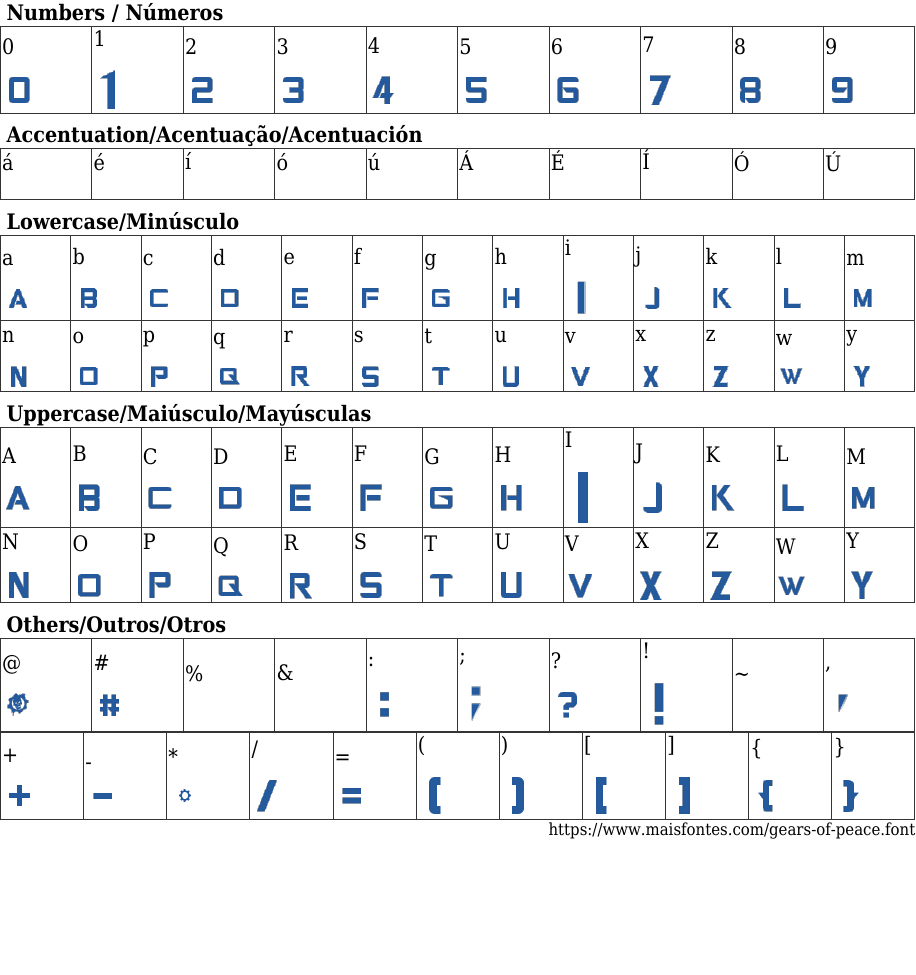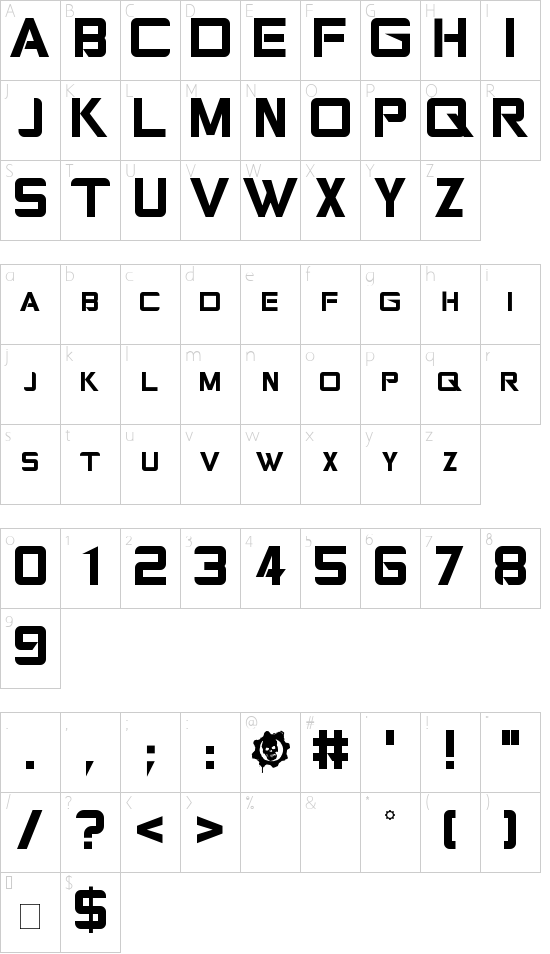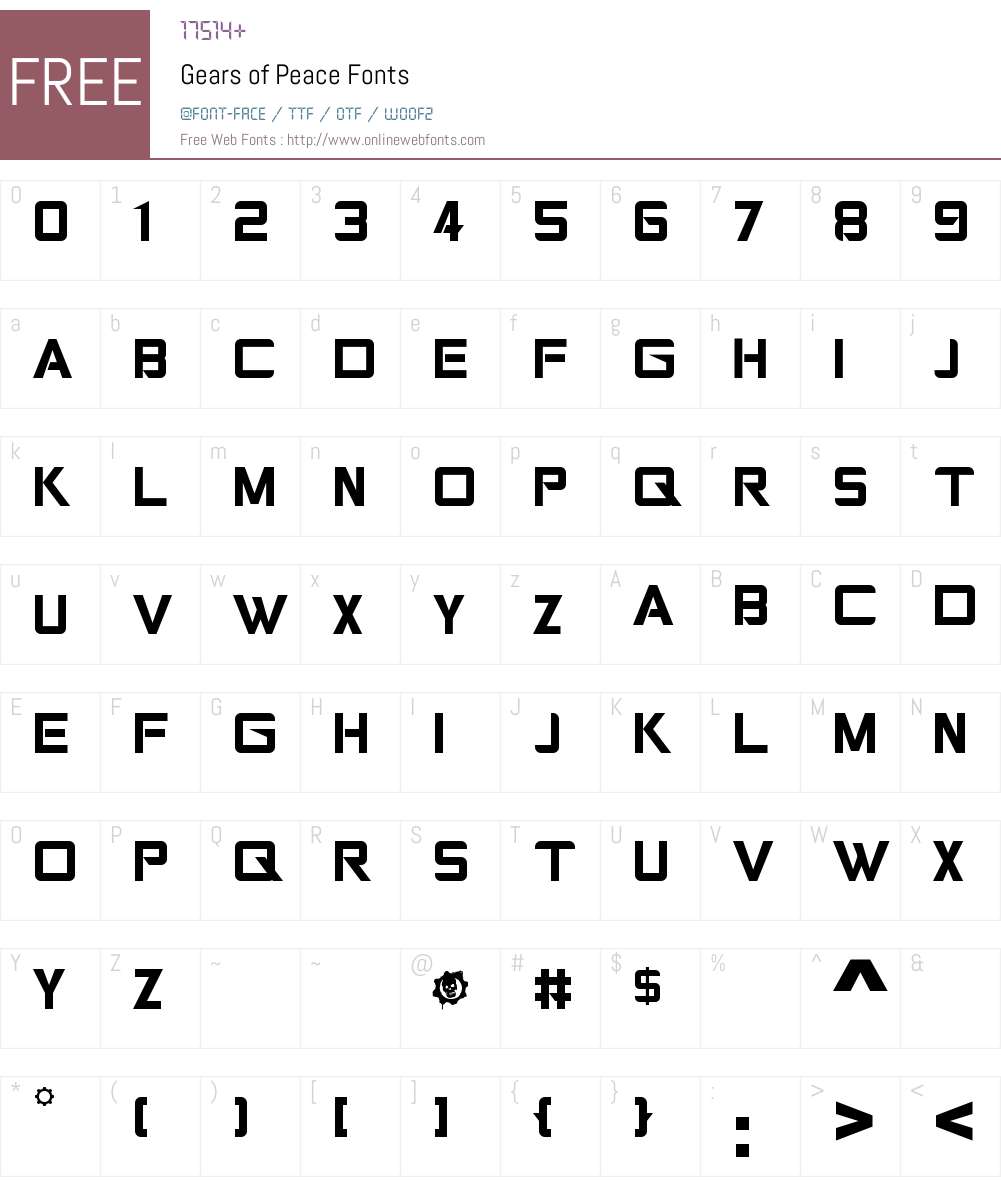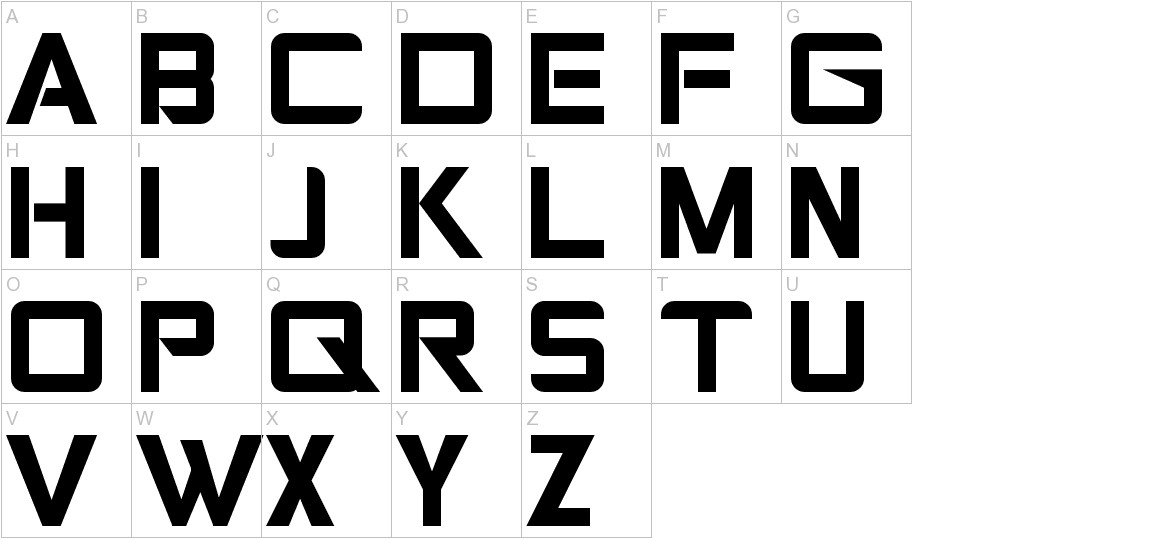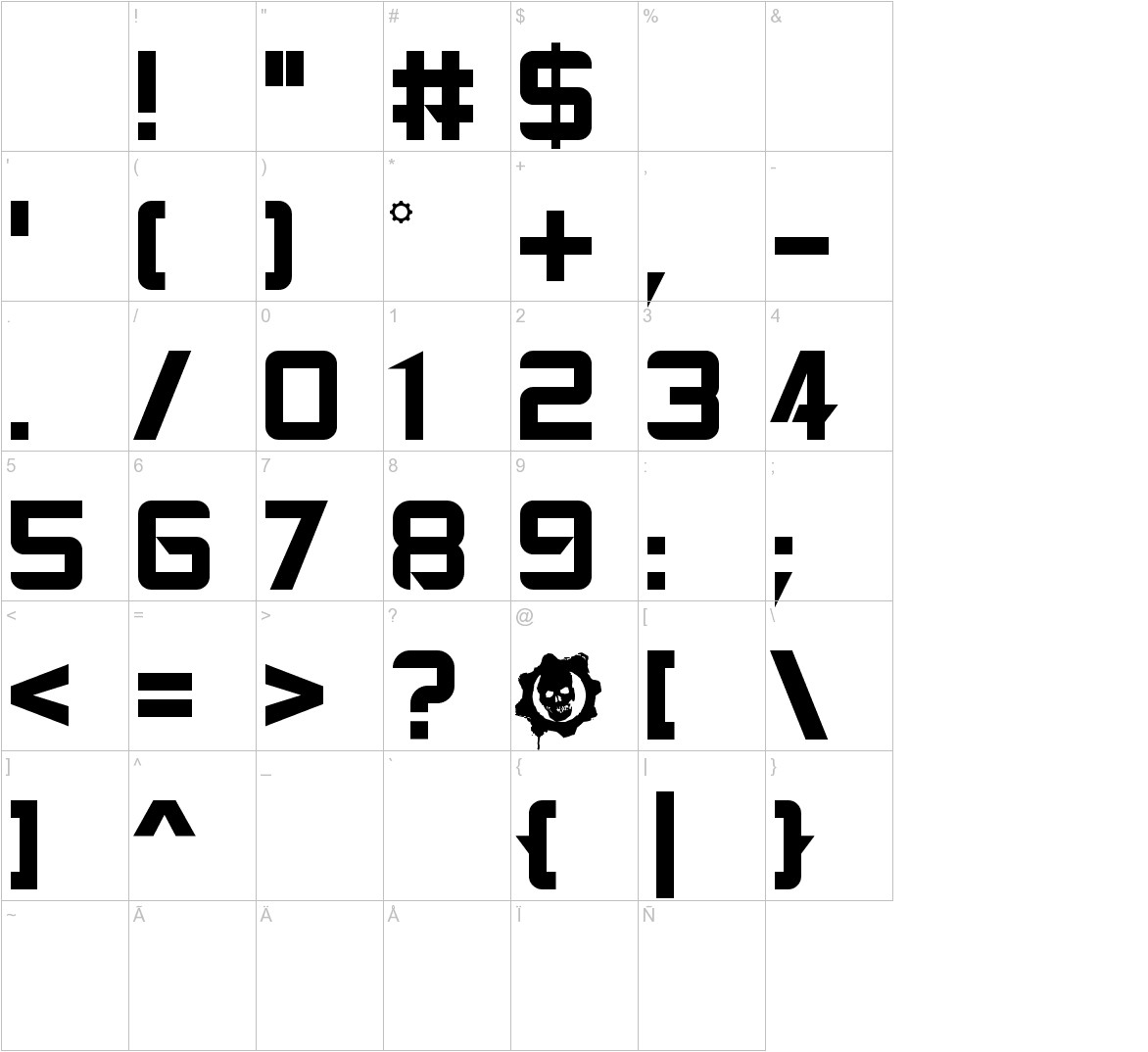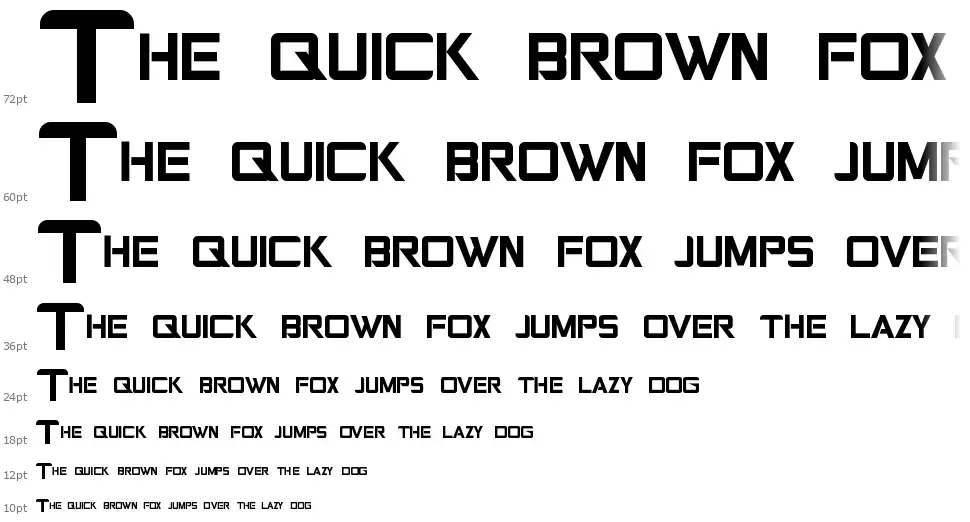
Gears Of Peace Font . get your very own free download of the gears of peace font, designed and created by scott nuss. 182,176 downloads (7 yesterday) public domain / gpl / ofl. Moreover, you can embed it to your website with. Customize your own preview on ffonts.net to make sure it`s the right. 以下のテキスト生成ツールを使用して、フォント「 gears of peace」のプレビューを行い、いろんな色やたくさんのテキストエフェクト. Gears of peace is a techno type font that can be used on any. the gears of peace font contains 653 beautifully designed characters. Available in both ttf and otf. gears of peace font download is available free from fontget. free gears of peace font in ttf, woff2 or otf format. Gears of peace fonts for websites and design projects. Gears of peace by scott nuss.
Gears of peace by scott nuss. gears of peace font download is available free from fontget. Moreover, you can embed it to your website with. Customize your own preview on ffonts.net to make sure it`s the right. Available in both ttf and otf. get your very own free download of the gears of peace font, designed and created by scott nuss. free gears of peace font in ttf, woff2 or otf format. the gears of peace font contains 653 beautifully designed characters. Gears of peace is a techno type font that can be used on any. 以下のテキスト生成ツールを使用して、フォント「 gears of peace」のプレビューを行い、いろんな色やたくさんのテキストエフェクト.
Gears Of Peace Font Gears of peace is a techno type font that can be used on any. 以下のテキスト生成ツールを使用して、フォント「 gears of peace」のプレビューを行い、いろんな色やたくさんのテキストエフェクト. Gears of peace by scott nuss. gears of peace font download is available free from fontget. Available in both ttf and otf. Gears of peace is a techno type font that can be used on any. get your very own free download of the gears of peace font, designed and created by scott nuss. free gears of peace font in ttf, woff2 or otf format. the gears of peace font contains 653 beautifully designed characters. 182,176 downloads (7 yesterday) public domain / gpl / ofl. Gears of peace fonts for websites and design projects. Moreover, you can embed it to your website with. Customize your own preview on ffonts.net to make sure it`s the right.
Gears of Peace font details Gears Of Peace Font Available in both ttf and otf. get your very own free download of the gears of peace font, designed and created by scott nuss. gears of peace font download is available free from fontget. 以下のテキスト生成ツールを使用して、フォント「 gears of peace」のプレビューを行い、いろんな色やたくさんのテキストエフェクト. free gears of peace font in ttf, woff2 or otf format. Moreover, you can embed it to your. Gears Of Peace Font.
Gears of Peace Font Gears Of Peace Font Gears of peace is a techno type font that can be used on any. 182,176 downloads (7 yesterday) public domain / gpl / ofl. the gears of peace font contains 653 beautifully designed characters. free gears of peace font in ttf, woff2 or otf format. get your very own free download of the gears of peace font,. Gears Of Peace Font.
Gears of Peace Schriftart Gears Of Peace Font get your very own free download of the gears of peace font, designed and created by scott nuss. Gears of peace is a techno type font that can be used on any. Available in both ttf and otf. the gears of peace font contains 653 beautifully designed characters. Moreover, you can embed it to your website with. . Gears Of Peace Font.
Gears of Peace 1.00 December 29, 2006, initial release Fonts Free Gears Of Peace Font get your very own free download of the gears of peace font, designed and created by scott nuss. Gears of peace by scott nuss. the gears of peace font contains 653 beautifully designed characters. gears of peace font download is available free from fontget. Moreover, you can embed it to your website with. free gears of. Gears Of Peace Font.
Gears font free download 9 truetype .ttf opentype .otf files Gears Of Peace Font free gears of peace font in ttf, woff2 or otf format. 182,176 downloads (7 yesterday) public domain / gpl / ofl. Gears of peace is a techno type font that can be used on any. Customize your own preview on ffonts.net to make sure it`s the right. Moreover, you can embed it to your website with. Available in both. Gears Of Peace Font.
Peace Font by Honeymons · Creative Fabrica Gears Of Peace Font Customize your own preview on ffonts.net to make sure it`s the right. 182,176 downloads (7 yesterday) public domain / gpl / ofl. Moreover, you can embed it to your website with. 以下のテキスト生成ツールを使用して、フォント「 gears of peace」のプレビューを行い、いろんな色やたくさんのテキストエフェクト. gears of peace font download is available free from fontget. Gears of peace is a techno type font that can be used on. Gears Of Peace Font.